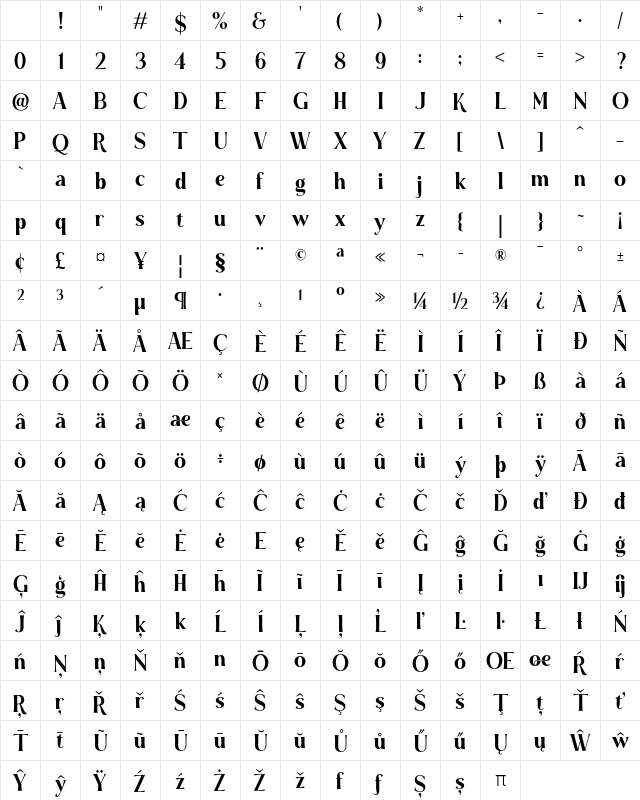
Complete Gradia Light Regular glyph index. Displaying only characters natively supported by Gradia Light Regular font.
Gradia Light is a composed and adaptable typeface that performs quietly and consistently across a wide range of design contexts. Its slender proportions lend an understated elegance to any composition.